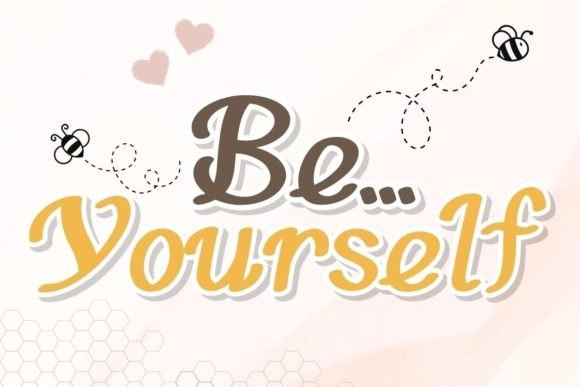
Introduction to Be Yourself Font
Whether youโ€™re crafting invitations, branding materials, or anything else, โ€œBe Yourselfโ€ will add a touch of individuality and charm to your text, helping your message stand out beautifully.
Embrace your uniqueness with โ€œBe Yourselfโ€ font .
Key Features of Be Yourself Font
• โœ… High quality design for professional projects
Why Choose Be Yourself Font?
Be Yourself Font offers exceptional quality and versatility, making it a valuable addition to your design toolkit. Whether you’re creating for personal projects or commercial use, Be Yourself Font delivers professional results.